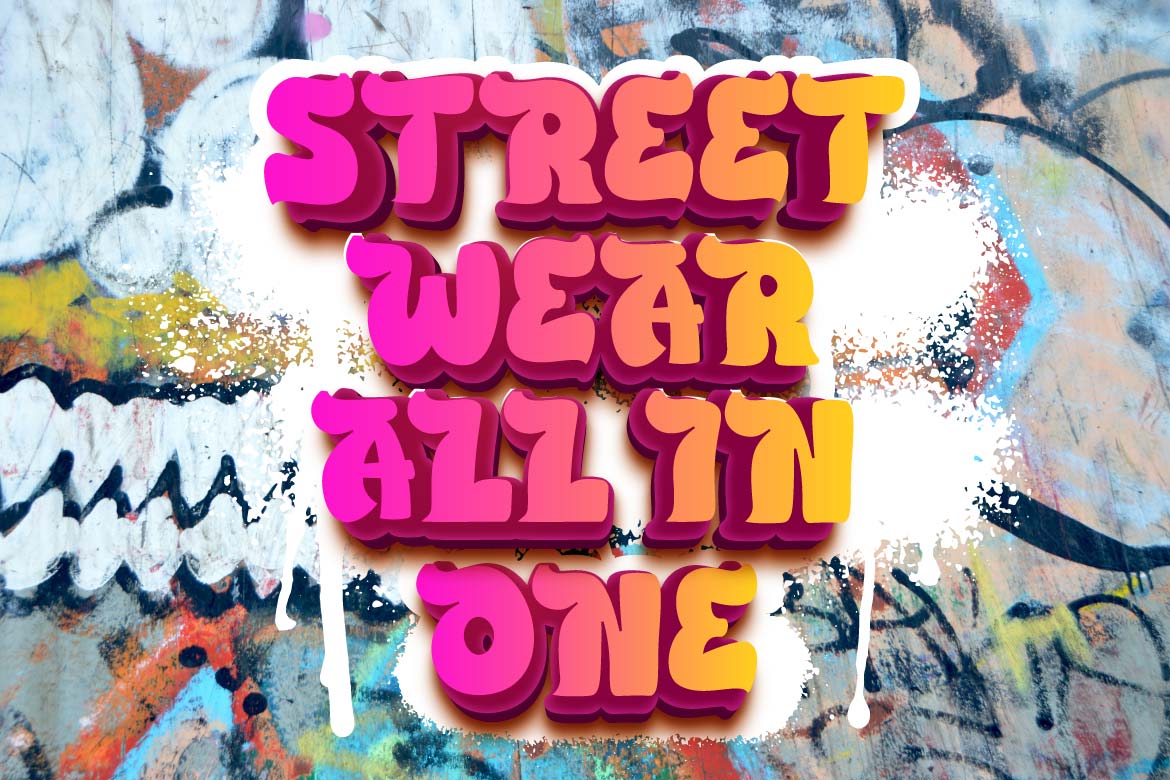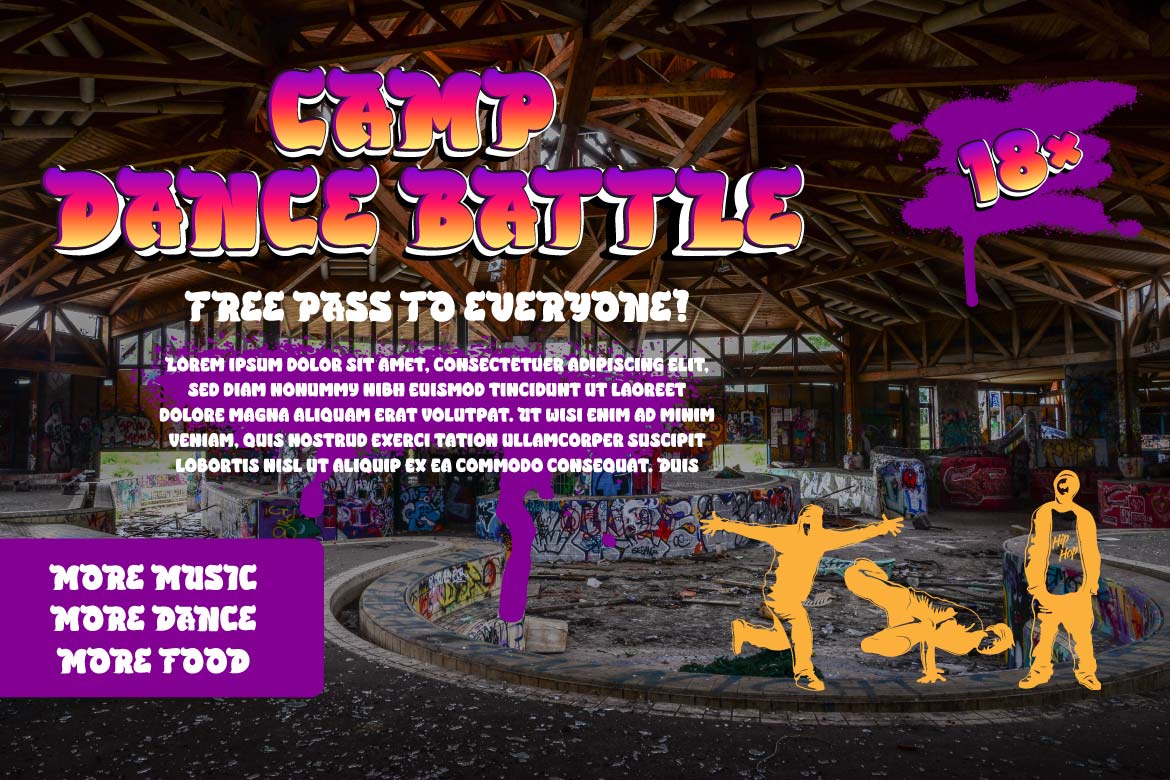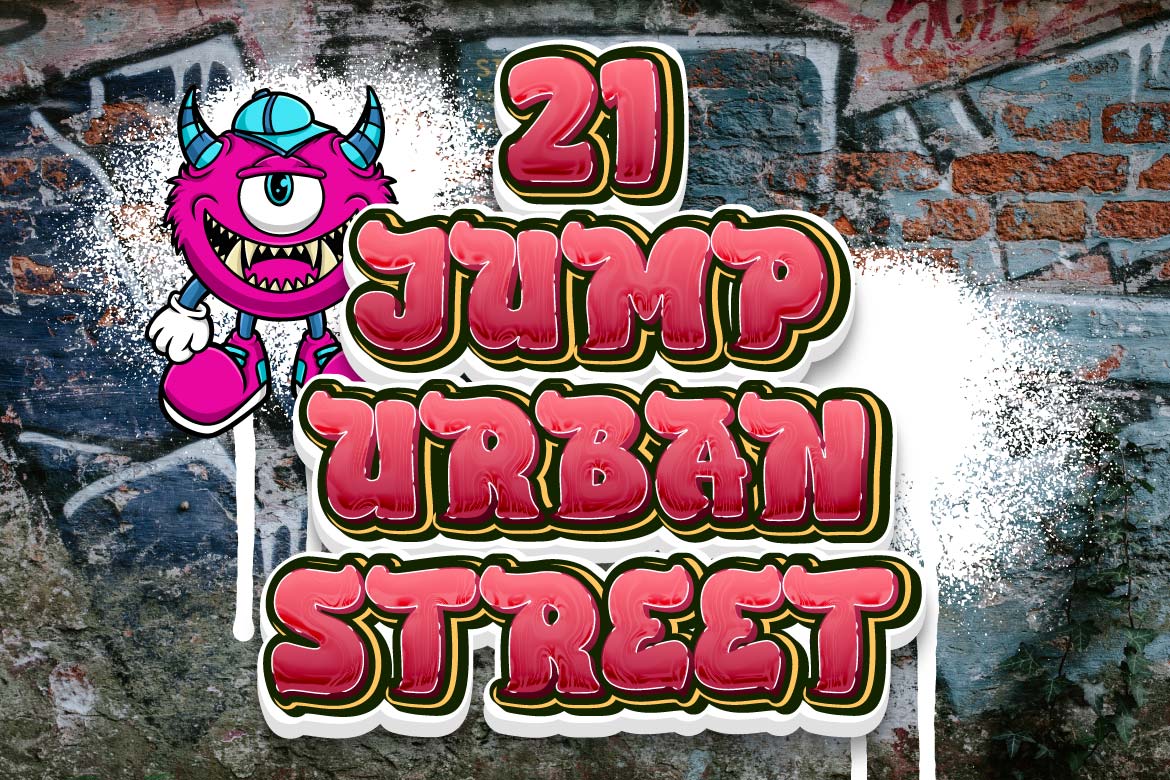
PAYU Font
PAYU Display Font
It’s a unique, intriguing, and quirky typeface that we present to all of you. This font was created to satisfy the demands of beautiful and quick graphics, allowing you to quickly produce attractive and elegant projects. Take a look at the font’s harmony and harmony; your project will shine like a prima donna.
This graffiti font is great for product logos, poster titles, headlines, packaging, film titles, logotypes, gorgeous writing, and trendy graffiti designs, among other things.
Of course, if you utilize this font in your numerous creative projects, they will be perfect and outstanding. Use this typeface right away for your one-of-a-kind and remarkable projects.